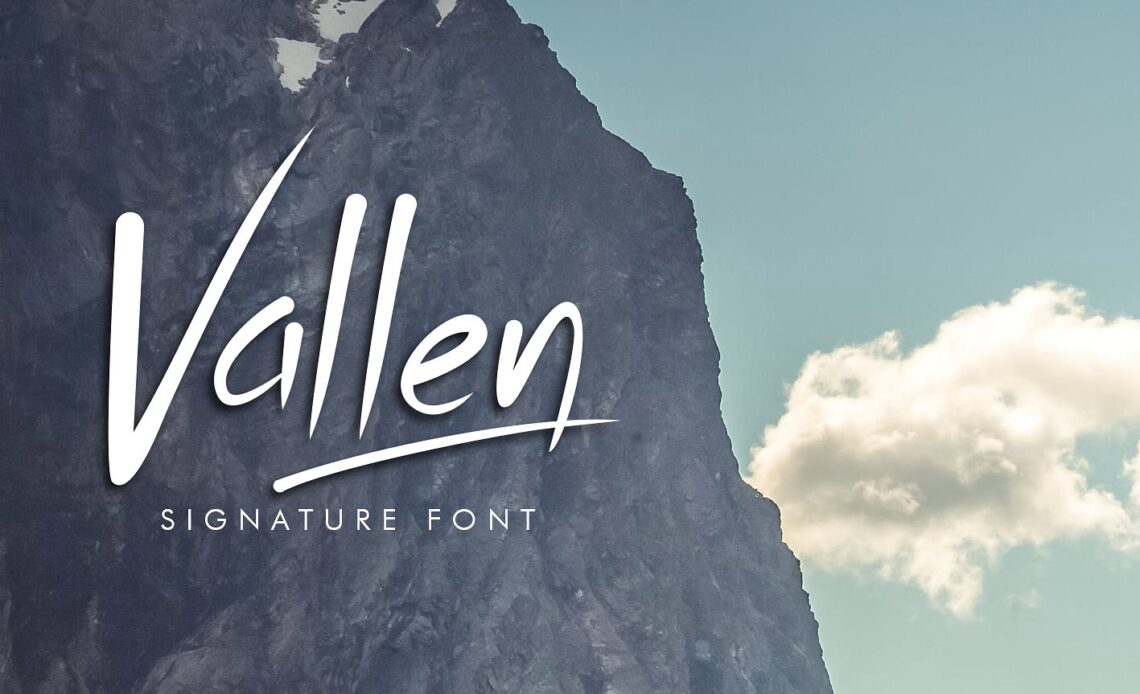
Introducing Vallen, the font that will elevate your designs to new heights. This exquisite display font, lovingly crafted by the talented Khurasan, is a masterpiece of digital artistry. With its smooth brush strokes and handmade charm, Vallen exudes an authentic and captivating aura.
Whether you're designing captivating logos, enchanting invitations, or eye-catching social media posts, Vallen is your go-to font for creating a lasting impression. Its elegant curves and flowing lines evoke a sense of timeless sophistication, while its subtle imperfections add a touch of organic warmth.
Vallen's versatility knows no bounds. Use it to create effortlessly chic branding, add a touch of charm to your website, or craft unforgettable invitations that will have your guests raving. Its wide range of applications makes it the perfect choice for designers of all levels, from seasoned professionals to creative enthusiasts.
Embrace Vallen today and unlock the limitless possibilities it holds for your designs. Let its timeless beauty and captivating charm elevate your creations and leave an enduring mark on your audience.